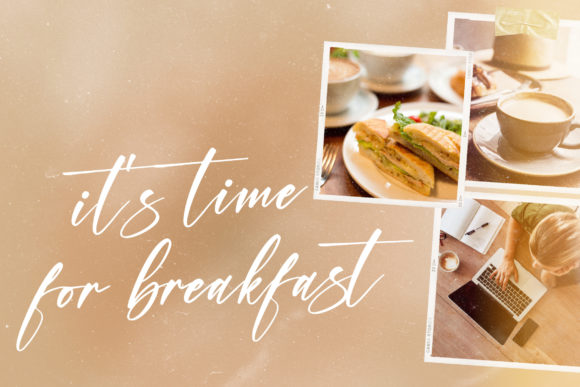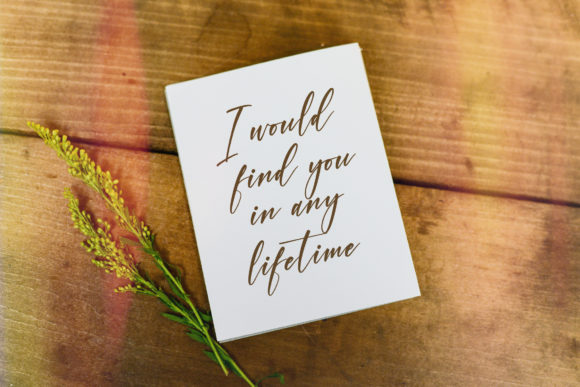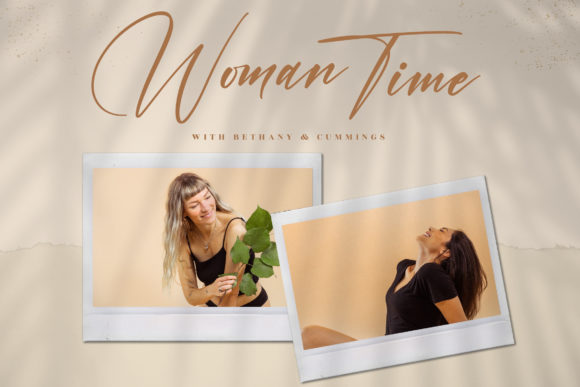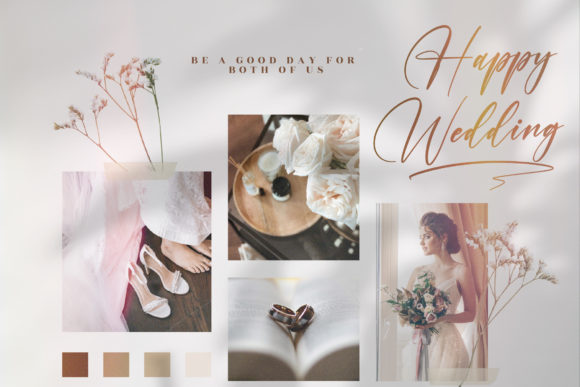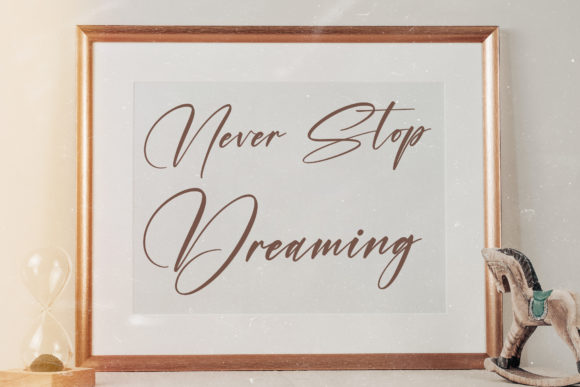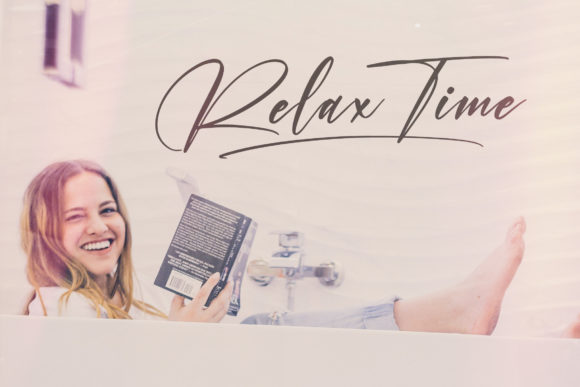
Introduction to Kallinda Font
Do you remember that moment when you’re brainstorming a new design project, and the perfect font just pops into your mind? For designers, it’s like finding the missing piece of a puzzle. That’s exactly what the Kallinda Font does – it elevates your high-quality creative projects to the next level. Its beautiful script style is not only visually appealing but also versatile enough to be used in a wide range of applications, from logos and branding projects to homeware designs and product packaging.
Whether you’re a seasoned designer or just starting out, the Kallinda Font is an invaluable resource that can help you bring your ideas to life. With its transparent background and free download option, you can easily incorporate it into your designs without worrying about any limitations. In this article, we’ll delve into the world of Kallinda Font and explore its features, uses, and benefits for designers.
Key Features of Kallinda Font
- High-quality design with a unique, modern aesthetic, making it ideal for creative projects.
- Transparent background, allowing for effortless layering and customization in graphic design projects.
- Part of a comprehensive font family, offering a range of styles and weights to suit various design needs.
Honest Review: Kallinda Font
I recently stumbled upon the Kallinda Font while searching for a high-quality design resource for my next creative project. I must say, I was quite impressed with what I found.
What works well: ✨ The font has a beautiful, elegant design that’s perfect for titles and headings. It’s highly customizable and can be easily paired with other fonts to create a unique look. The transparent background is also a great feature, allowing for seamless integration with any design.
Limitations: ⚠️ While the font is highly customizable, it may not be suitable for all types of designs. For example, it may not be the best choice for body text or for designs that require a more informal tone.
Overall, I’m quite impressed with the Kallinda Font and would definitely recommend it to designers looking for a high-quality, creative design resource. With its elegant design and transparent background, it’s an excellent addition to any design toolkit.
Tips for Getting the Most Out of Kallinda Font
Experiment with different font sizes and styles to find the perfect fit for your design project. Combine the Kallinda Font with other design resources for a unique and creative look.
The Kallinda Font is ideal for any high-quality design project, including business cards, logos, and presentations. Its transparent background makes it perfect for overlaying on images, adding a touch of elegance and sophistication to your design.